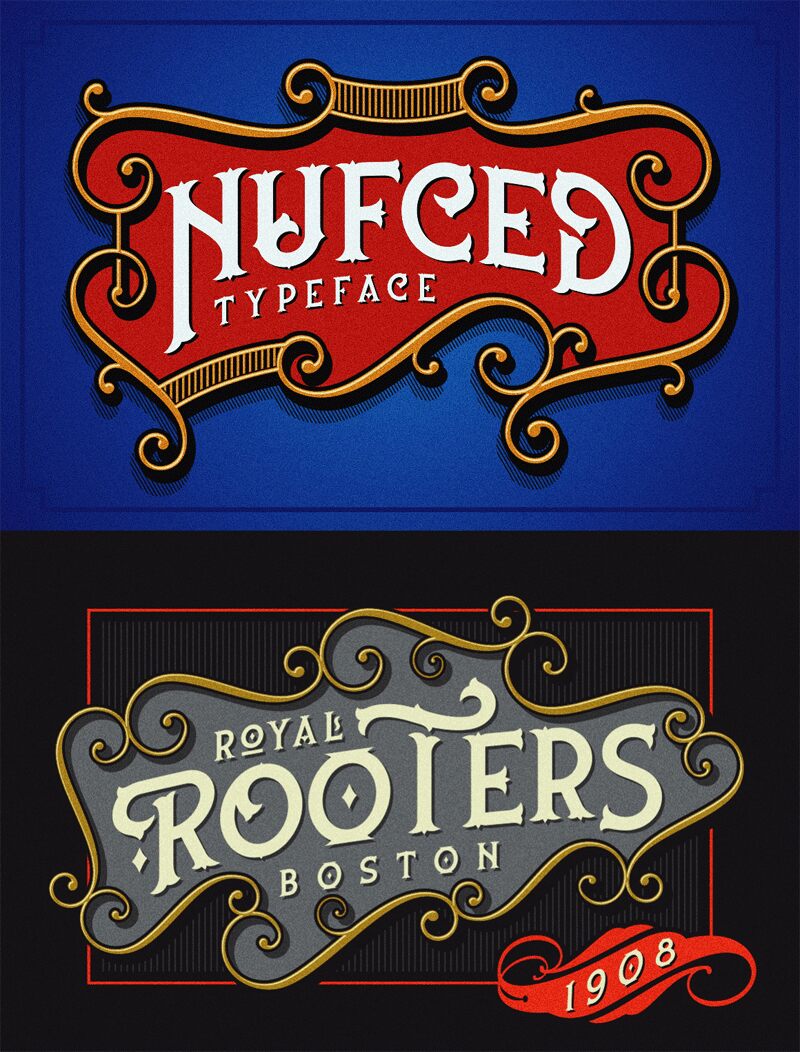
Nufced is a captivating display typeface that effortlessly blends retro charm and modern flair. Its striking all-caps design radiates a sporty, vintage-inspired aesthetic, inspired by the bold American advertisement lettering of yesteryear. Nufced's sharp, serif-like forms exude a strong, confident presence without sacrificing the fluid movements and flexibility that make it a versatile choice.
This typeface shines in any design project with a sports, vintage, or Americana-themed aesthetic. Its unique character and dynamic appeal make Nufced an excellent selection for eye-catching headlines, impactful branding, and attention-grabbing advertisements.